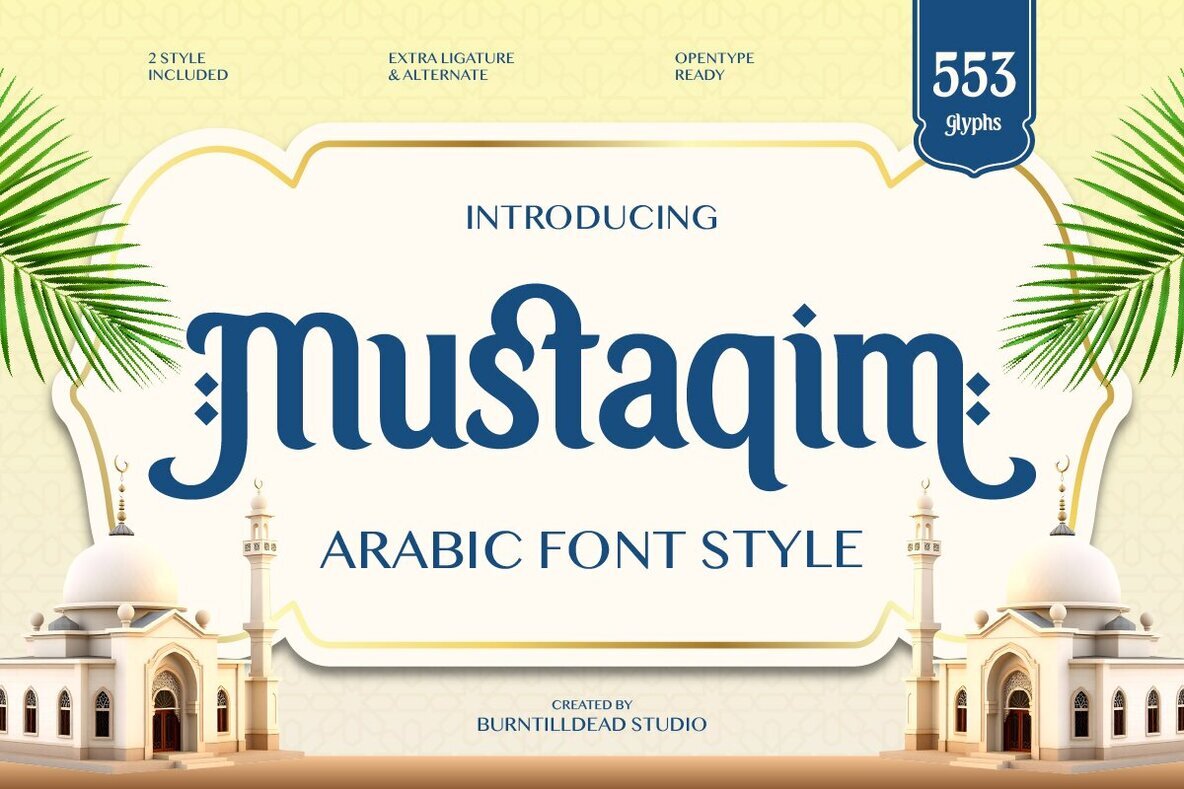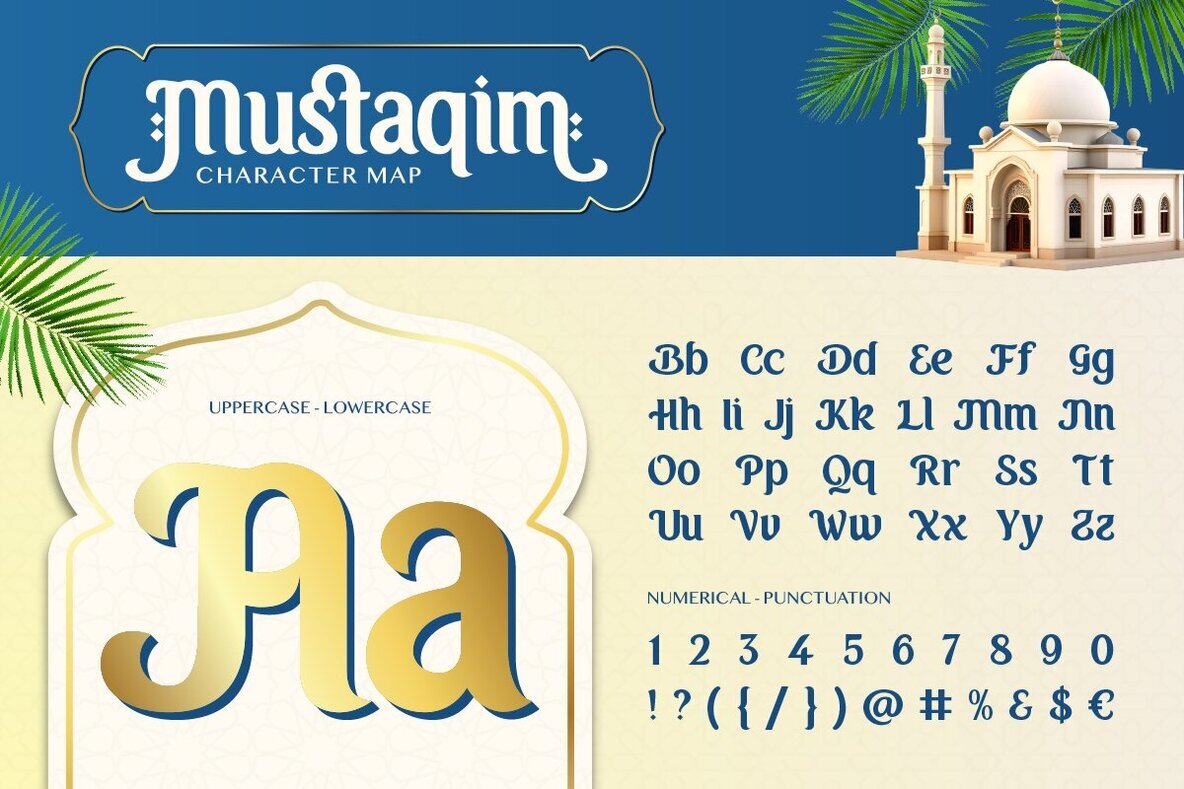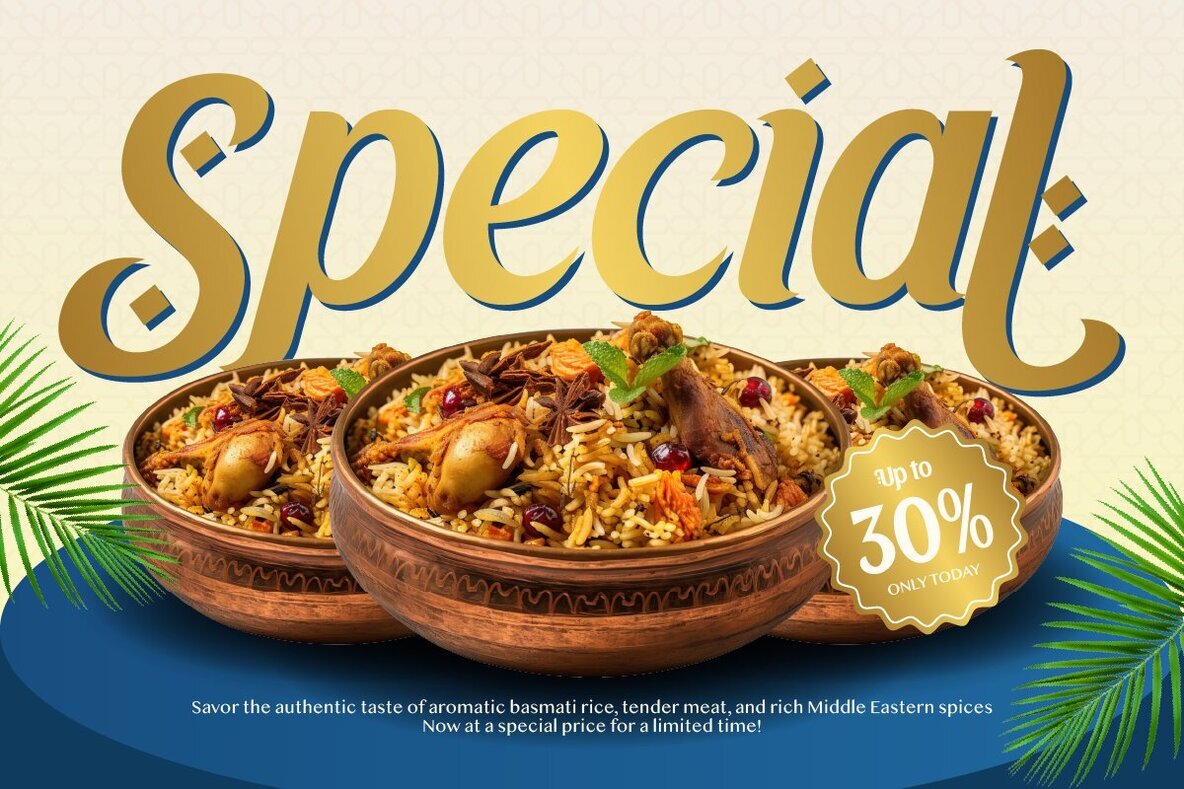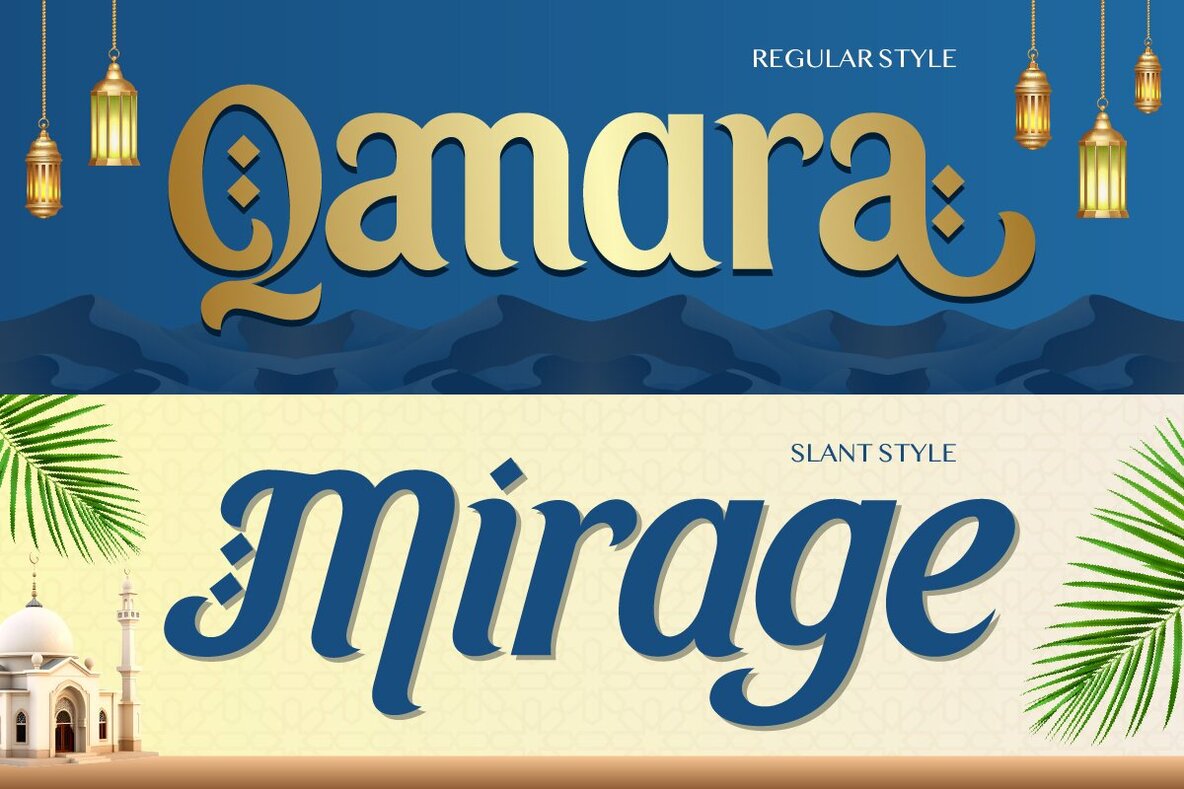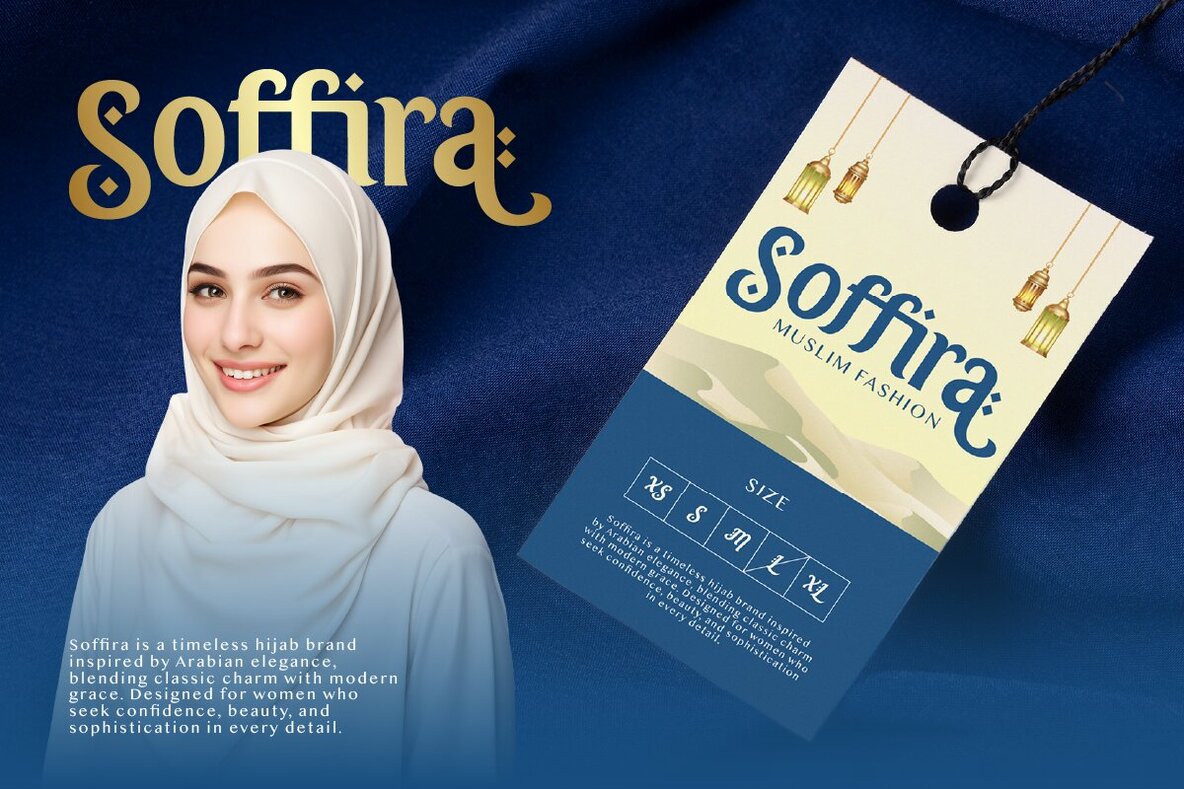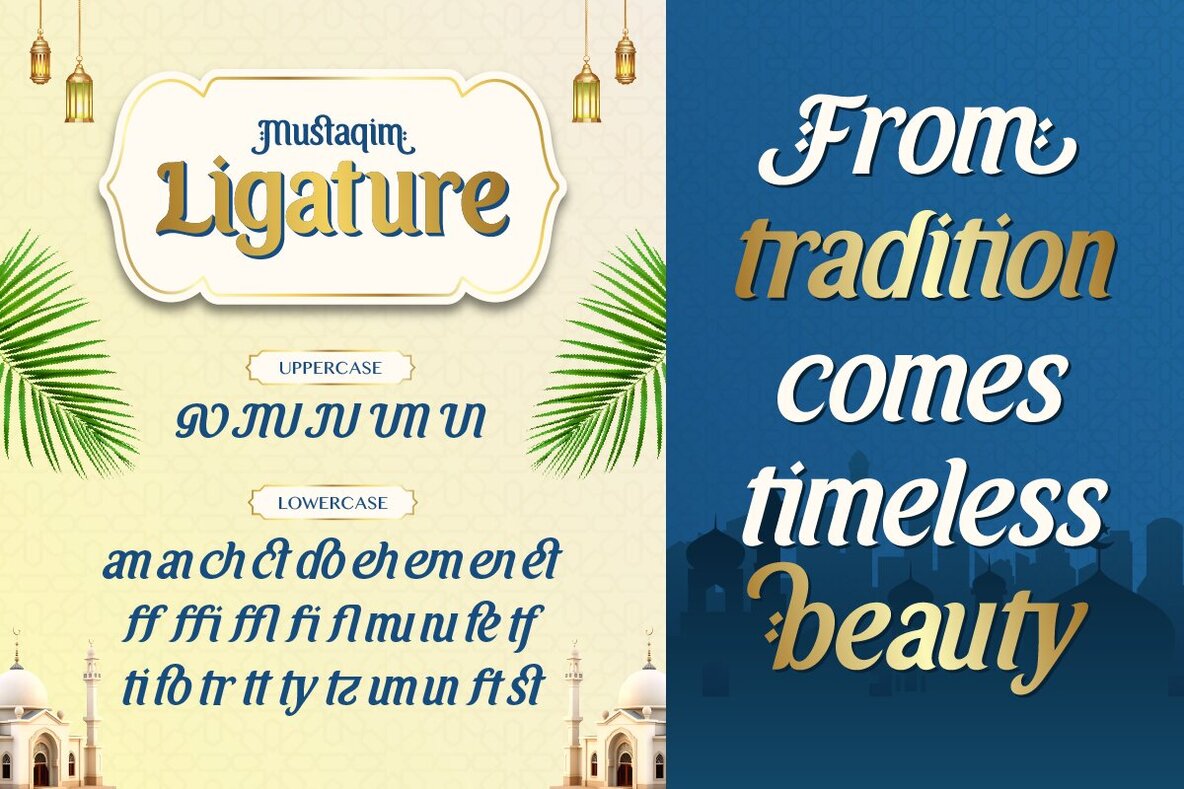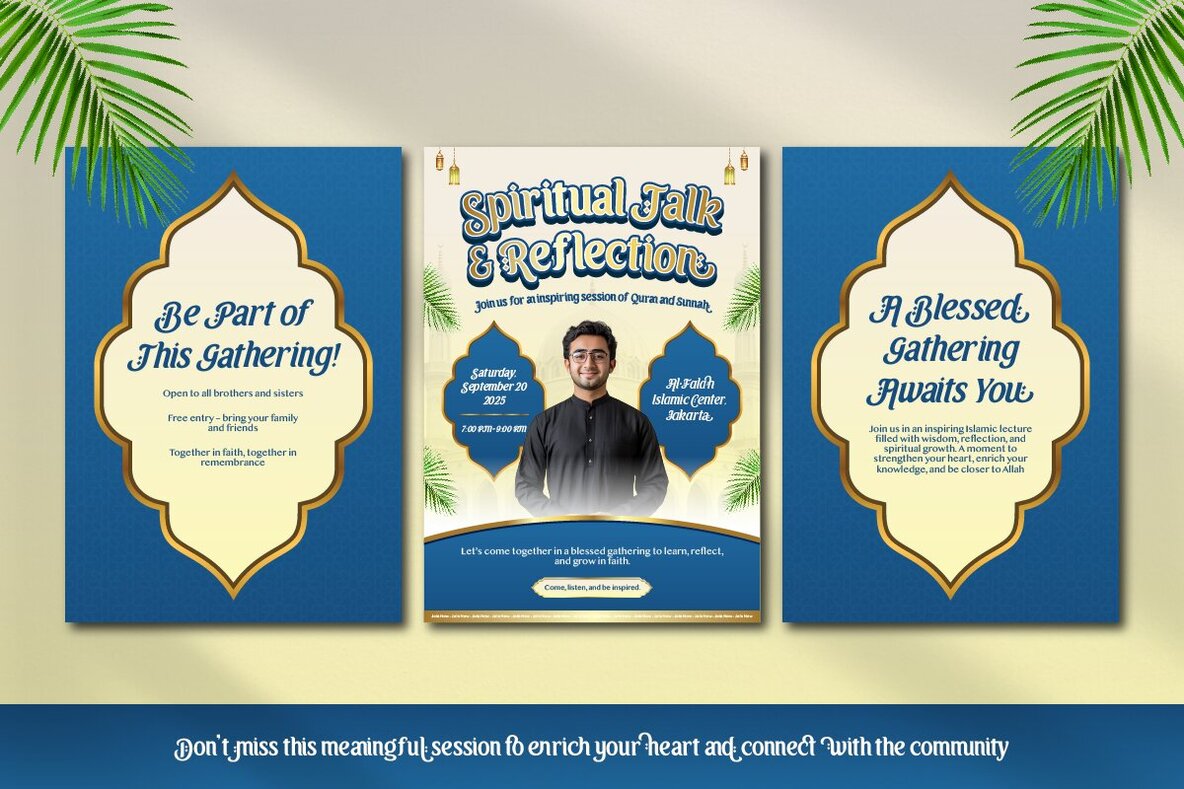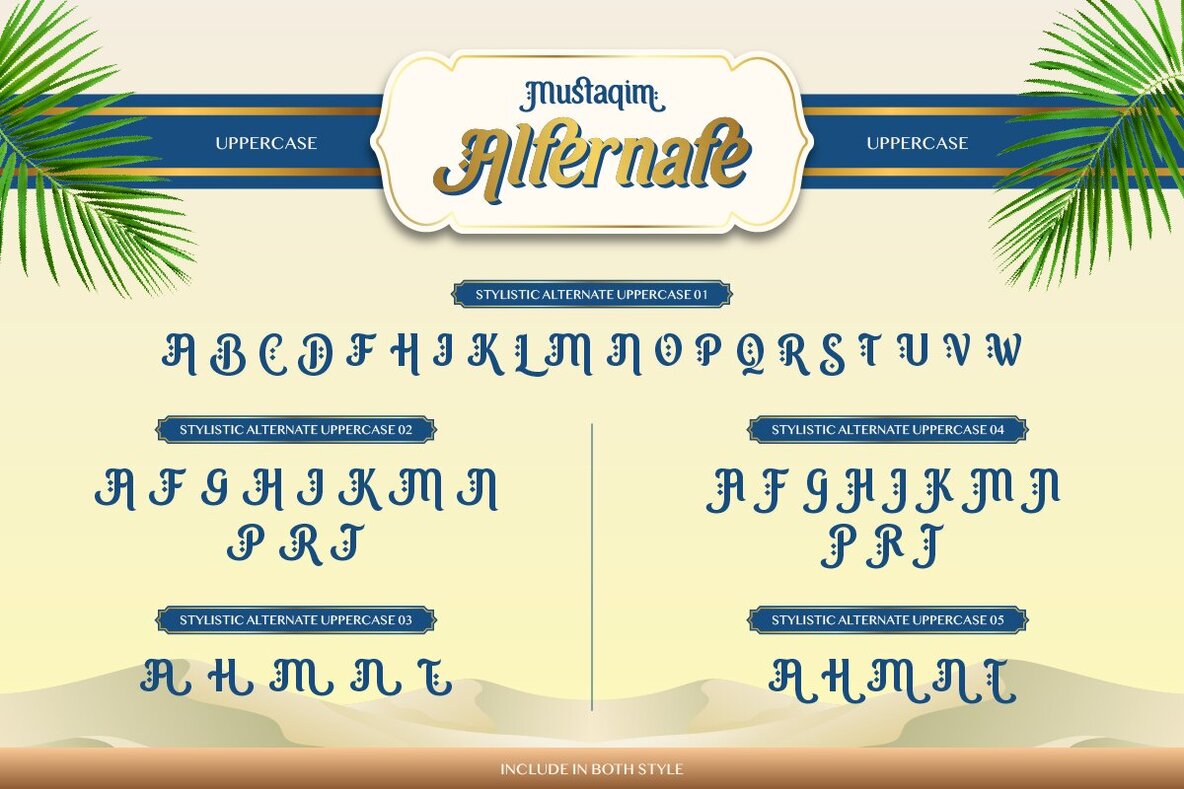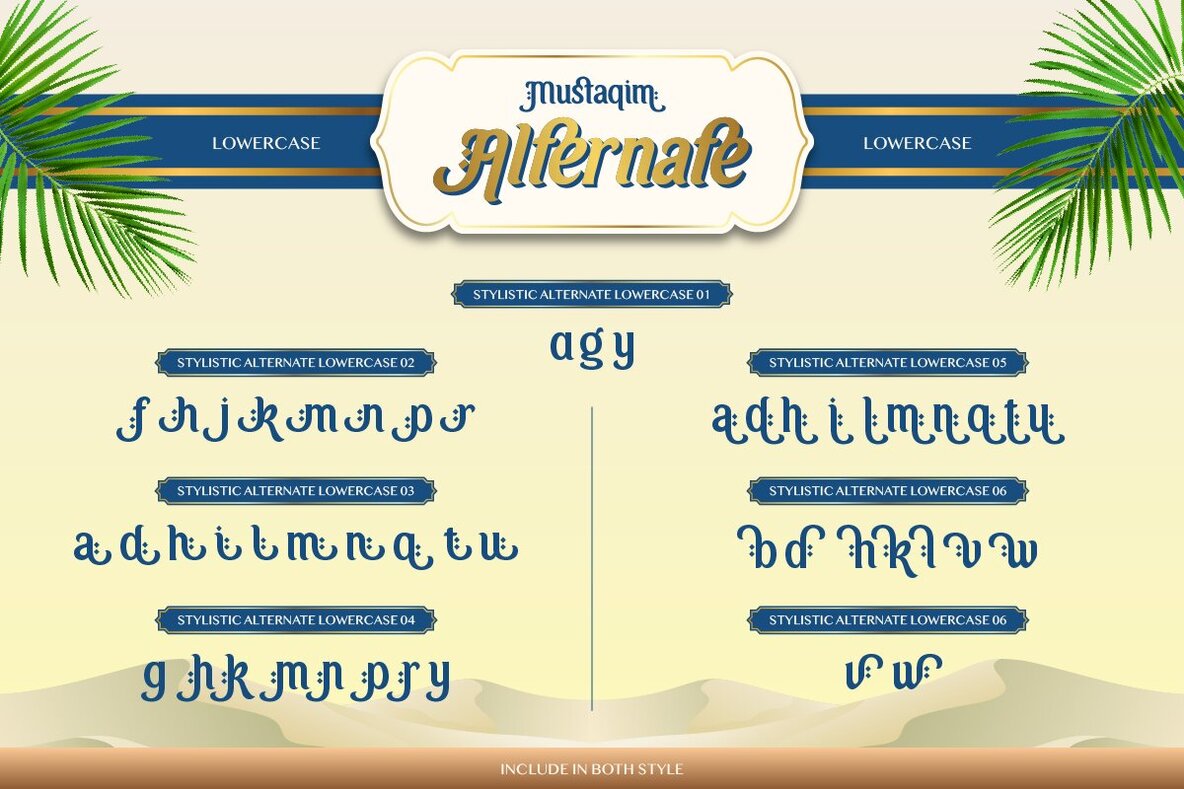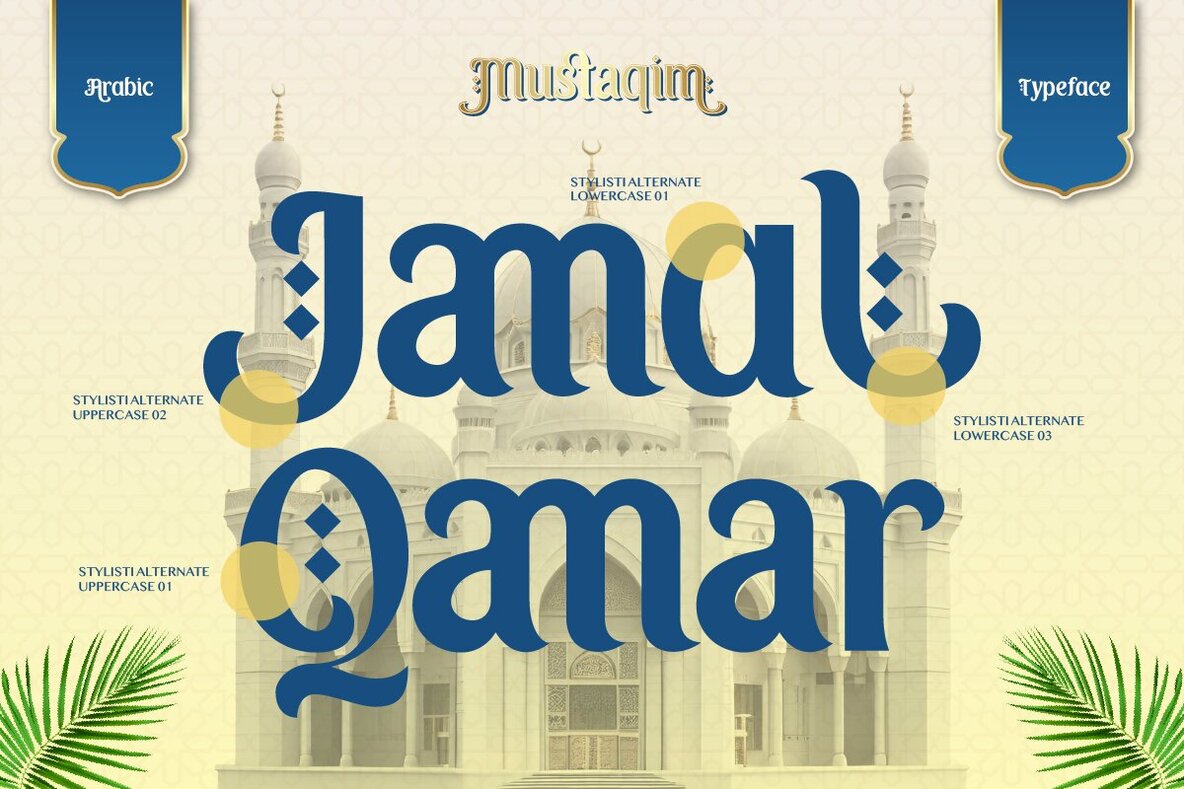
Mustaqim Font
Mustaqim Regular
Mustaqim Slant
Mustaqim brings the essence of Arabic design to contemporary projects. This display font features smooth curves, refined ligatures, and a wide set of 553 glyphs. Its unique design strikes a balance between cultural heritage and modern style, making every word look both purposeful and visually striking. Ideal for seasonal greetings, branding, logo development, and eye-catching social media graphics, Mustaqim adapts effortlessly to different creative needs. The availability of Regular and Slant styles offers added versatility—whether you prefer a classic or more dynamic look. Each character is thoughtfully crafted to elevate communication with an authentic touch of tradition.Arabic-Inspired Display Font with Modern Elegance: Mustaqim